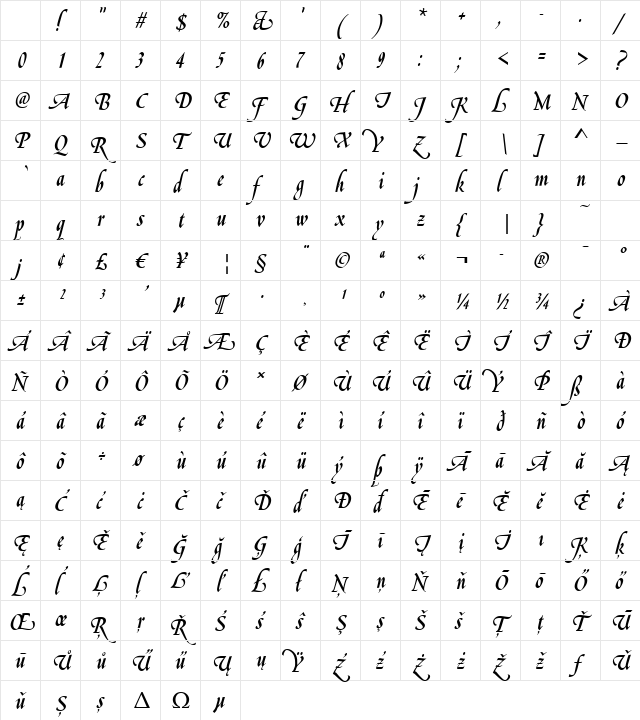
Livorno Regular
Design Context for Livorno
Livorno is a composed and adaptable typeface that performs quietly and consistently across a wide range of design contexts.